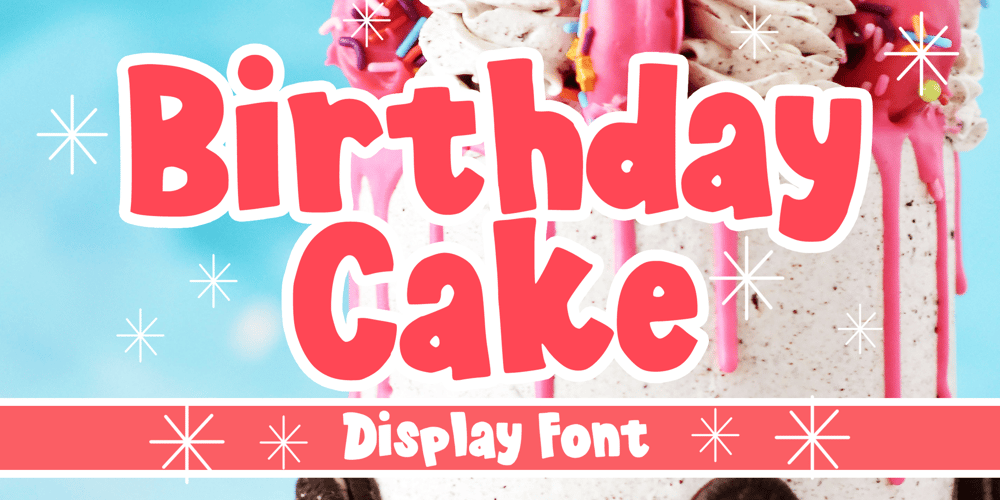
Birthday Cake
Birthday Cake font
Birthday Cake Font Family was designed by Gabriel Valentinus and published by Mvmet. Birthday Cake contains 1 styles and family package options. Birthday Cake is an amazing and playful display font for your birthday party designs, Valentine, Halloween, Christmas and other events. You can use it for anything ranging from t-shirts, kids’ book designs, greeting cards, stickers, and posters, blog writing, social media content, or anything that needs a casual touch. Try it to create lovely designs and feel the good vibes with it!